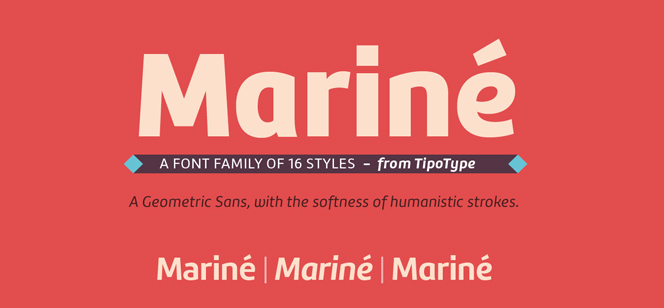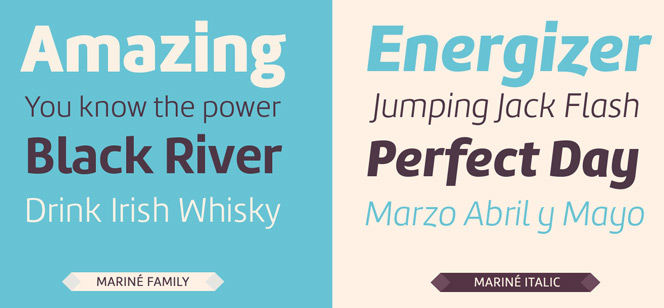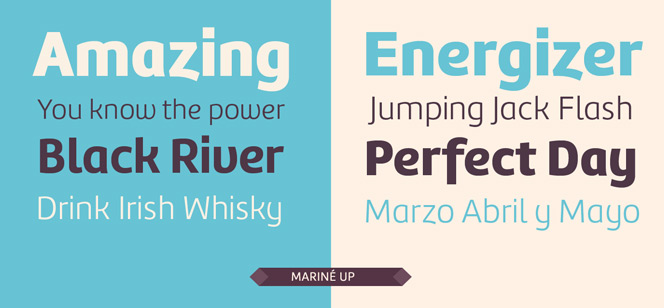
Mariné font
Mariné font by Martin Sommaruga (TipoType foundry) is a hybrid Sans Serif typeface family combining geometric skeleton with soft humanistic body. Mariné font family comes in 16 different styles and mild contrast, being good both for text and for display uses. It also includes an Up version and calligraphic features adding a touch of informality and warmth. Mariné font is a versatile and stylish option for text and titles, packaging, brand identities and many other graphic design tasks.
Mariné font is available in an extended family and is the close cousin of Amelia. All differences between Mariné and Amelia appear in the italic and Up versions.
Martin Sommaruga is graphic designer form Uruguay. He has been part of the collective Sociedad Tipografica de Montevideo since 2010. TipoType is the first type foundry from Montevideo, Uruguay, founded in 2009 by Vicente Lamónaca, Fernando Díaz and Martin Sommaruga. They are famous for their contemporary and well accepted typefaces as Rufina font, Fenix free font, Yapa Rough font, Quiroga Serif Pro font, Prevya Display font.